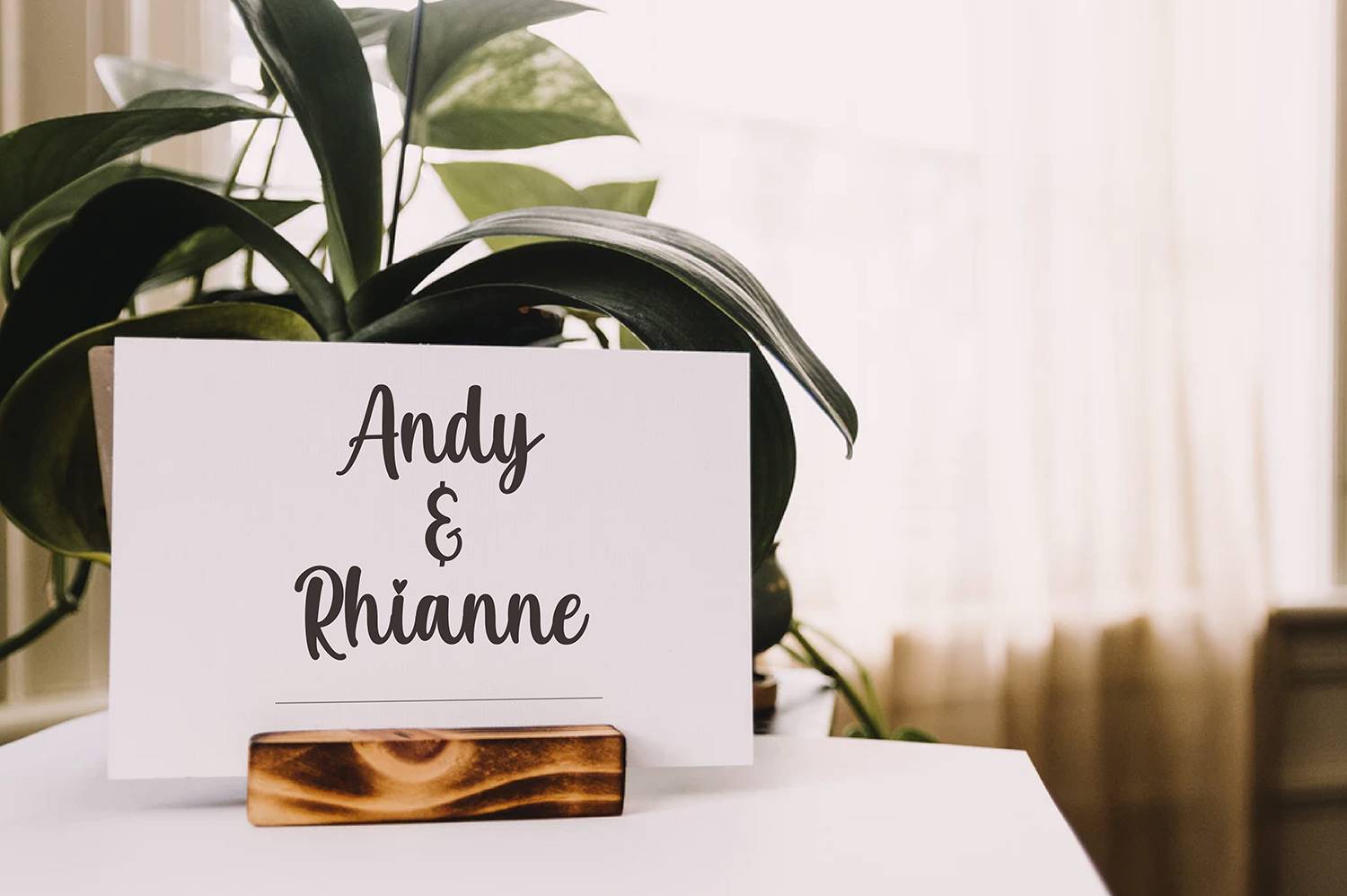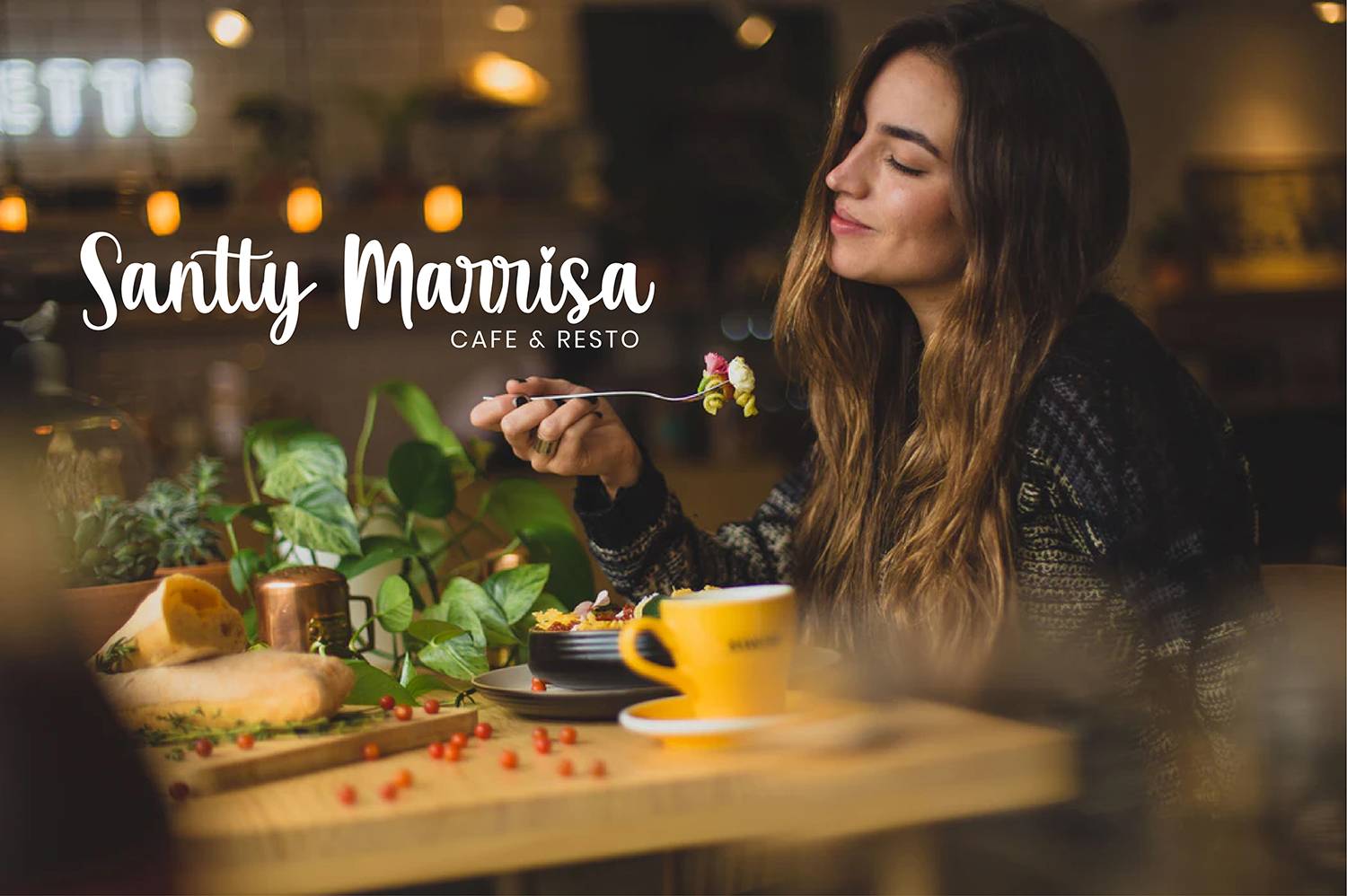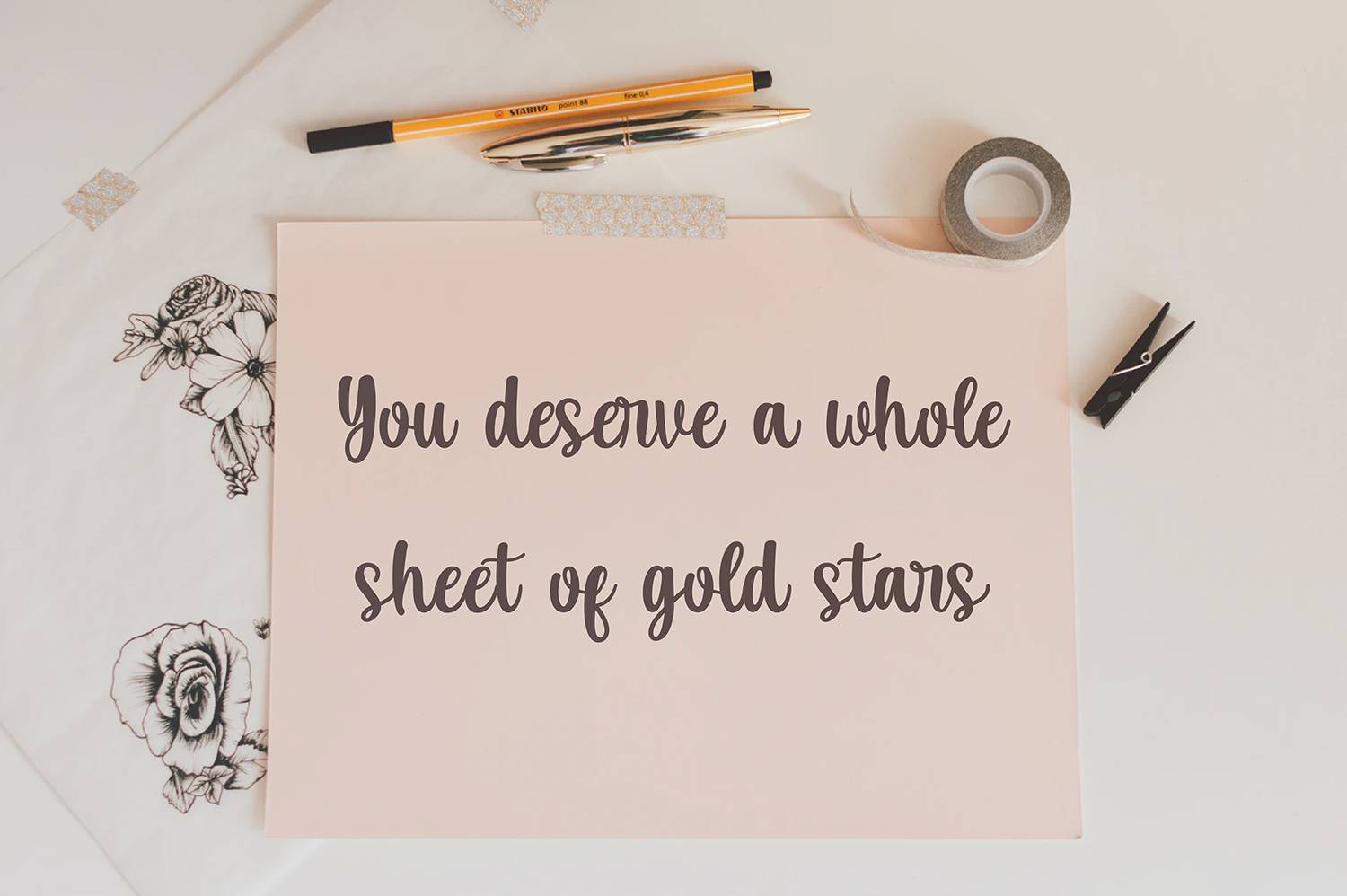
Sweet Dating is a charming script font with a playful and elegant feel, featuring a smooth, bold weight and lively, flowing strokes that give it warmth and personality. Its tall x-height, whimsical heart details, and consistent stroke contrast make it perfect for romantic, feminine branding and creative projects such as invitations, logos, and social media graphics. This font works beautifully where a friendly, cheerful style is needed to express sweetness and approachability.
Sweet Dating Font
About Sweet Dating Font